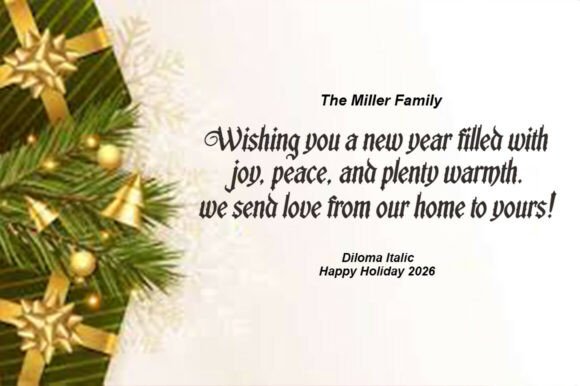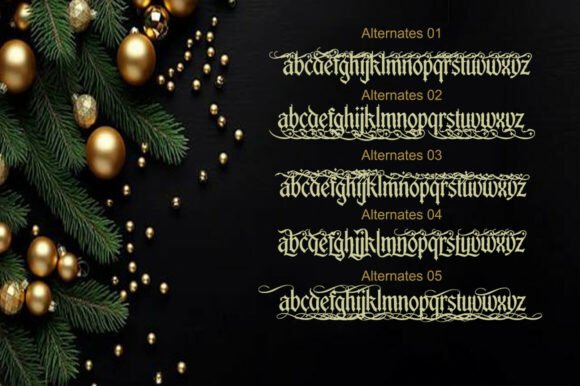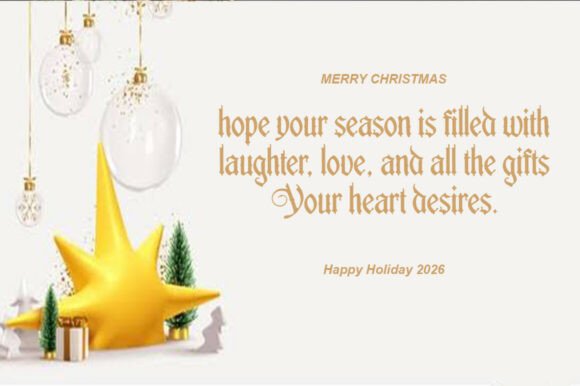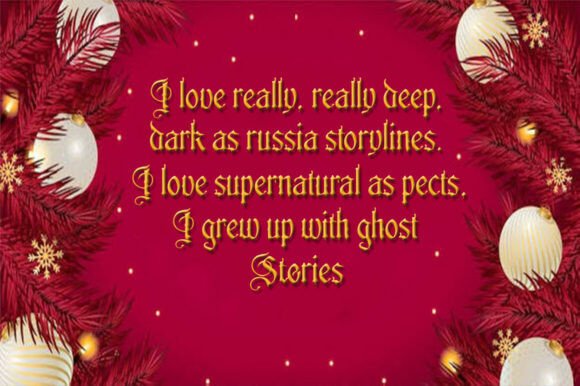
Introduction to Diloma Font
Discover the intersection of tradition and modernity with Diloma, a striking blackletter-inspired display font.
Merging the traditional elegance of calligraphy with the stark, raw aesthetics of brutalism, this font brings a unique fusion of history and modernity Inspired by the sharp, precise strokes of flat-pen calligraphy, each character is crafted with rigid, angular forms that evoke the structured, geometric feel of brutalism while maintaining the intricate detail and ornate beauty of Old English typography.